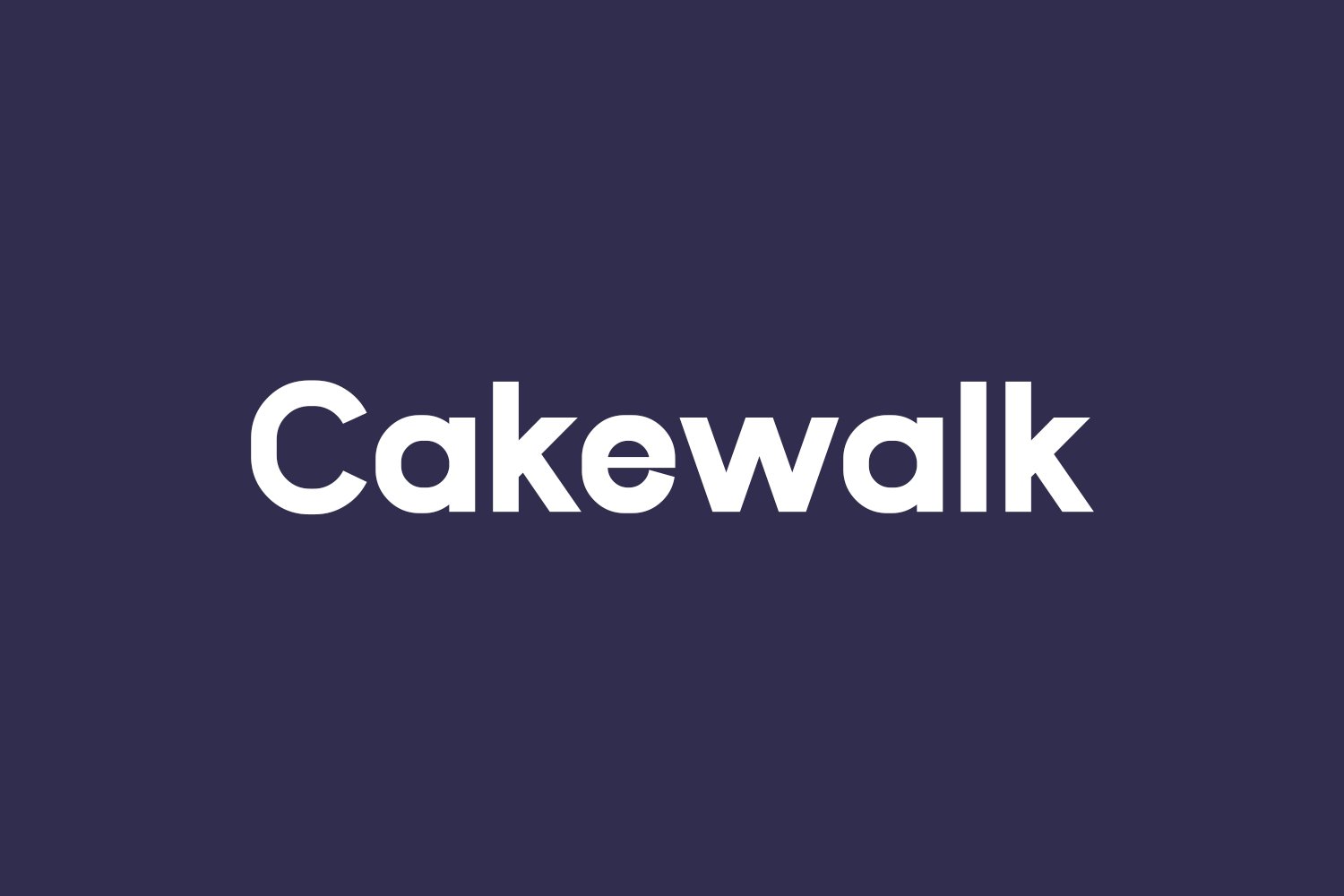
Cakewalk Free Font – Bold Sans Serif for Strong Display Design
Cakewalk is a bold and dynamic sans-serif font designed by UI Creative to bring strong visual presence and modern clarity to your creative projects. With its clean lines, high contrast, and expressive detailing, this free decorative typeface works perfectly for crafting powerful logos, posters, magazine headers, brand kits, and more. Available in OTF format — ideal for designers seeking a striking, contemporary font that commands attention while maintaining legibility.
Why Choose Cakewalk?
- Bold Minimalist Style: Combines sharp geometry with thick strokes for a confident, professional appearance.
- Ideal for Large Text: Perfect for billboards, event banners, or digital headlines needing visibility from a distance.
Where to Use Cakewalk?
Cakewalk shines across a variety of design applications:
- Logos & Brand Identity: Adds intensity to brand identities for lifestyle blogs, fashion labels, or action studios needing a loud tone.
- Poster & Billboard Design: Designed for maximum visibility — makes headlines pop in outdoor advertising.
- Digital Interfaces: Ideal for web headers, app typography, or landing page buttons where clear communication is essential.
- Editorial Headers: Stands out in blog titles, magazine covers, and digital banners with a crisp, stylish charm.
- Social Media Graphics: Enhances Instagram Stories, TikTok overlays, and YouTube banners with a bold sans-serif presence.
Design Tips with Cakewalk